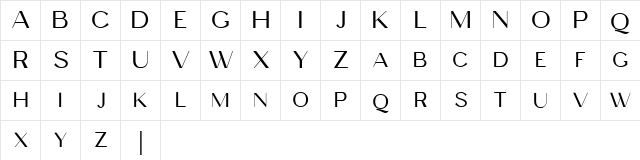
Celine Peach Free Sans
| Style | Sans |
| Foundry | Craft Supply Co |
Design Context for Celine Peach Free Typeface
Celine Peach Free offers clean, dependable letterforms without strong stylistic allegiance, making it a practical choice for designers who need flexibility.